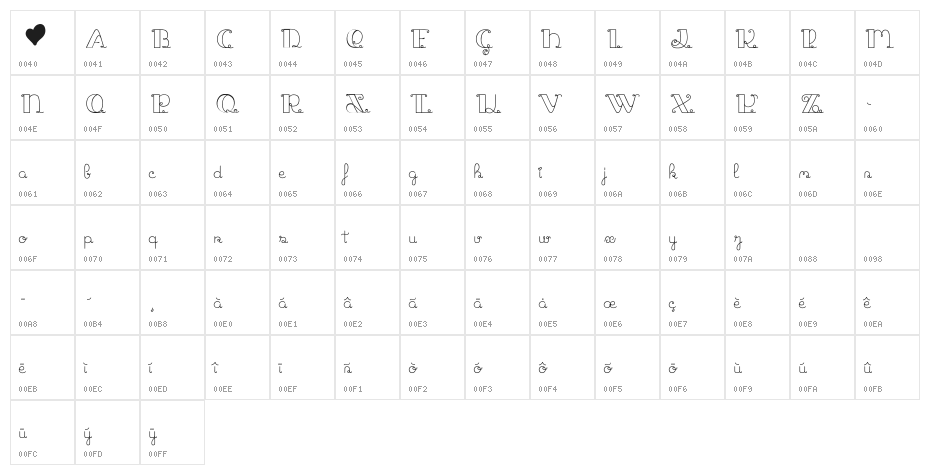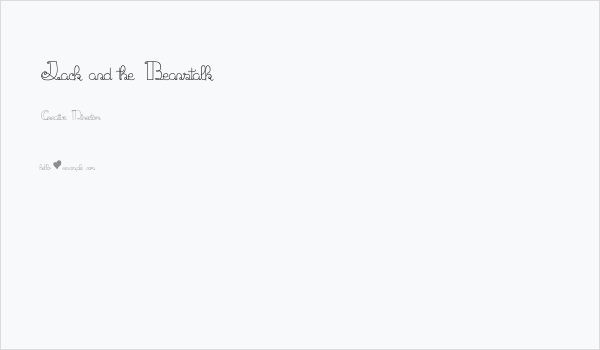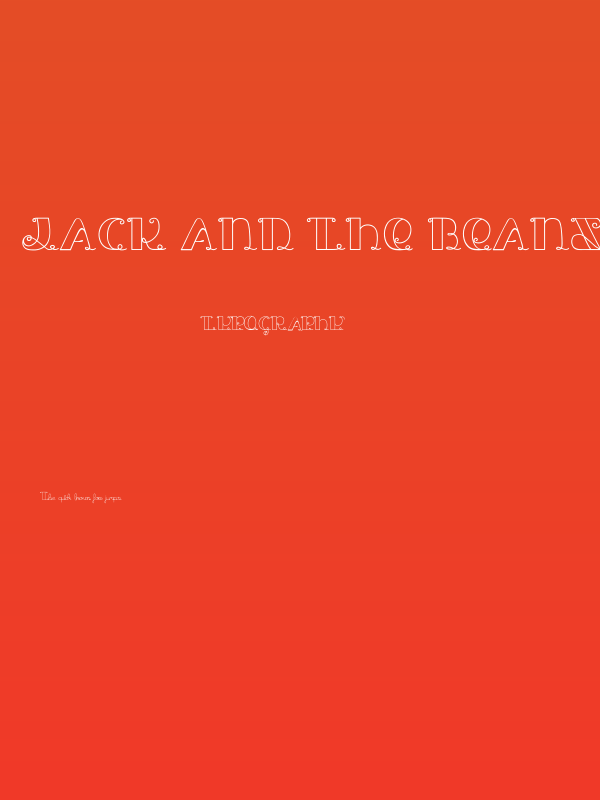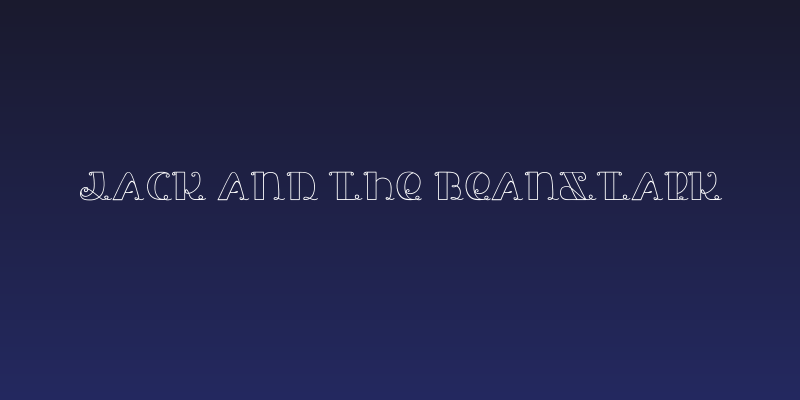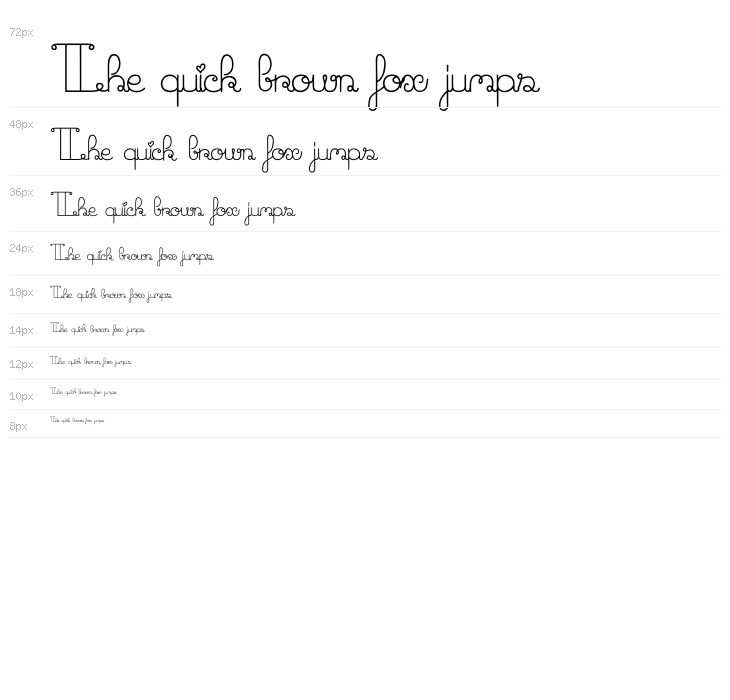
Jack and the Beanstalk Font
Jack and the Beanstalk Description
This font features an intricate and whimsical design, characterized by its decorative loops and curls that embellish each letter. The uppercase letters are particularly ornate, with elaborate swirls that give a playful and artistic feel. The lowercase letters maintain a similar style, though slightly more restrained, ensuring readability while still retaining the font's unique charm. The overall appearance is delicate and fanciful, making it ideal for creative and imaginative projects. The font's thin strokes and decorative elements suggest a light and airy aesthetic, perfect for adding a touch of elegance and whimsy.
| Proposed Projects | Ideal for invitations, greeting cards, children's book covers, and creative branding. |